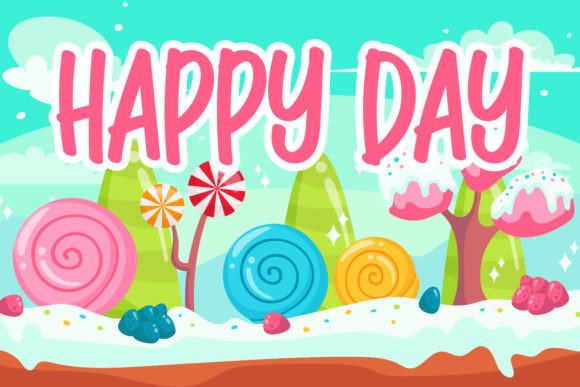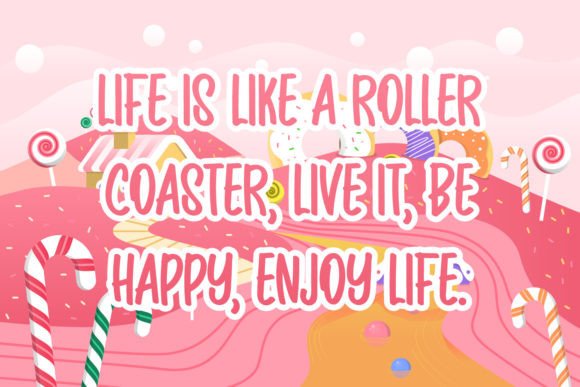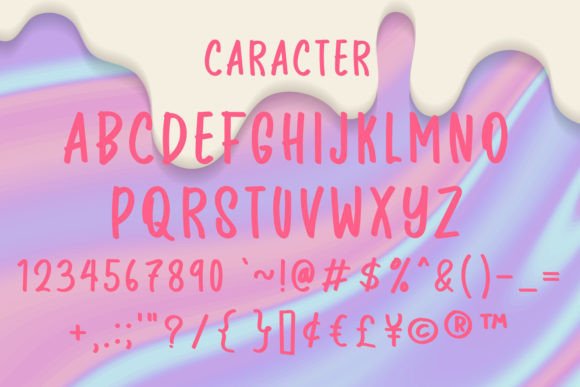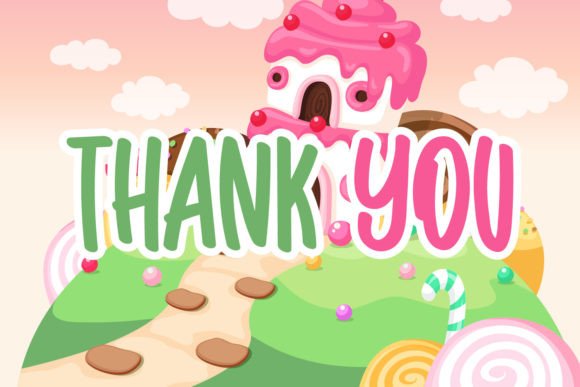
Candy Note Font: The Sweetest Addition to Your Design Collection
Are you a designer or crafter looking for a font that will add a touch of sweetness and fun to your designs? Look no further than Candy Note Font! This brilliant, fun, and cute handmade display font is perfect for children-themed designs, and is sure to make your creations stand out.
What is Candy Note Font?
Candy Note Font is a unique and playful font that is designed to bring a smile to your face. Its handmade, display-style letters are reminiscent of colorful candy wrappers and childhood treats, making it the perfect choice for designs aimed at kids or with a youthful theme.
Features of Candy Note Font
- Handmade with love: Each letter has been carefully crafted to ensure a unique, hand-drawn feel that’s perfect for adding a personal touch to your designs.
- Bright and playful: The font’s bold, colorful style is sure to grab attention and add a pop of fun to your designs.
- Versatile: Use Candy Note Font for a wide range of projects, from logos and quotes to T-shirts, greeting cards, business cards, and more.
Perfect for Children-Themed Designs
Candy Note Font is specifically designed with children-themed designs in mind. Whether you’re creating:
- Children’s party invitations: Make your invitations stand out with a sweet and playful font that’s sure to get kids excited.
- Kids’ clothing and accessories: Add a fun and colorful touch to your T-shirts, hats, and other kids’ wear with Candy Note Font.
- Educational materials: Make learning fun with a font that’s both playful and engaging.
Combining Candy Note Font with Bright Colors
To really make your designs pop, try pairing Candy Note Font with bright, bold colors. Some color combinations to try:
- Pink and blue: A classic combination that’s perfect for kids’ designs.
- Yellow and orange: Bright and cheerful, these colors are sure to grab attention.
- Green and purple: A fun and playful combination that’s perfect for St. Patrick’s Day or other themed designs.
Tips for Using Candy Note Font
Here are a few tips for getting the most out of Candy Note Font:
- Experiment with different sizes: Candy Note Font looks great in a variety of sizes, from large display text to smaller body text.
- Mix and match with other fonts: Try pairing Candy Note Font with other fonts for a unique and interesting look.
- Don’t be afraid to get creative: Candy Note Font is all about having fun and being playful, so don’t be afraid to try new and interesting things!